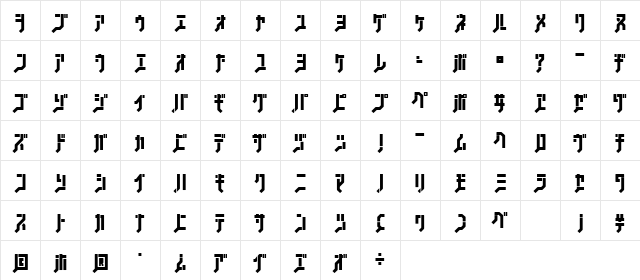
FSB08KlangStencilKt Regular
Design Context for FSB08KlangStencilKt Typeface
FSB08KlangStencilKt borrows the utilitarian aesthetic of stencil lettering, with its characteristic cutaways and no-frills construction lending an industrial edge.